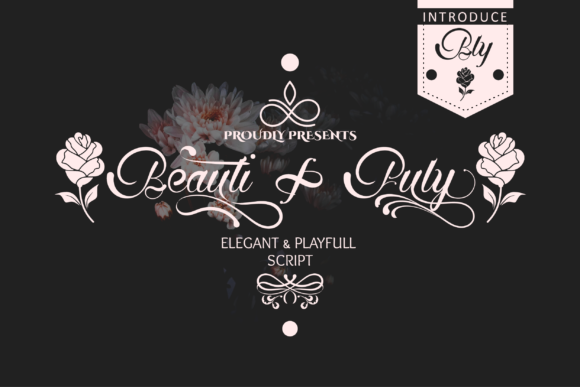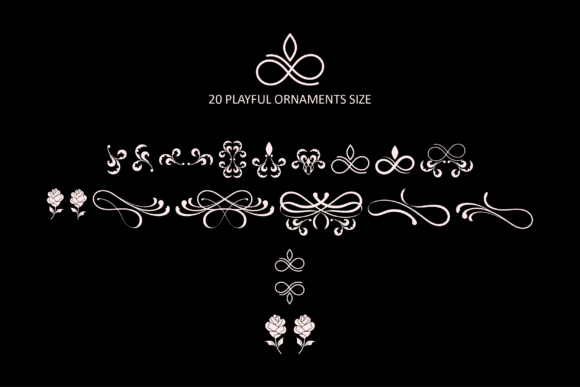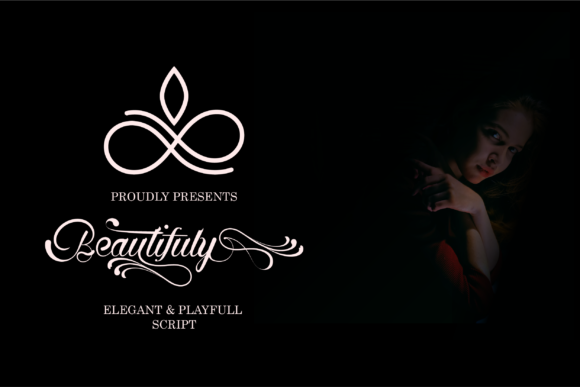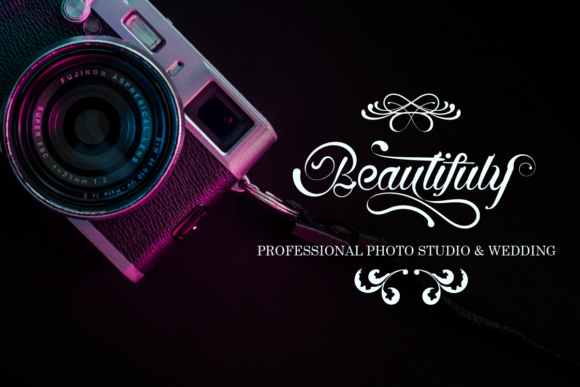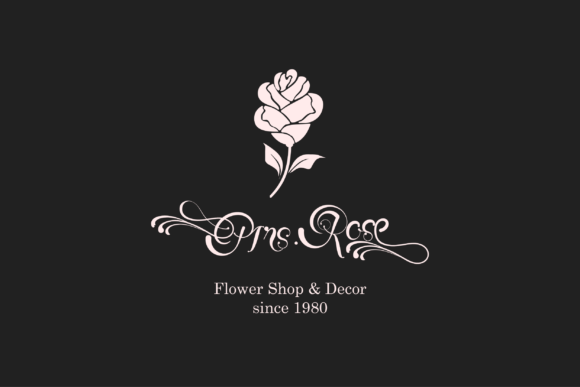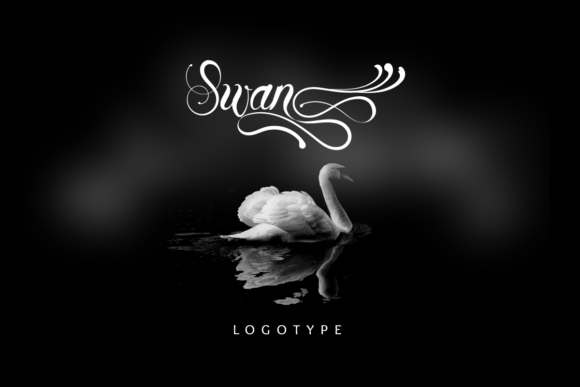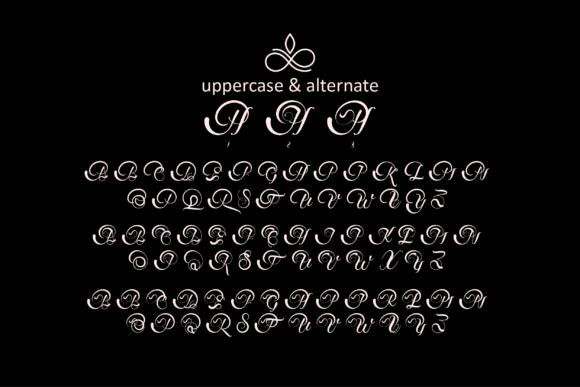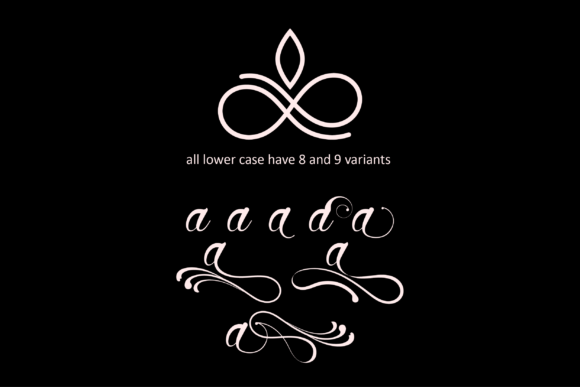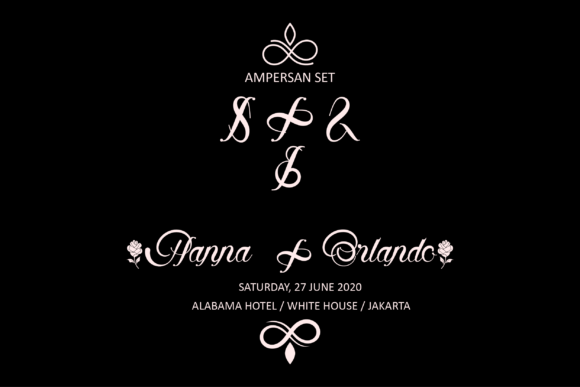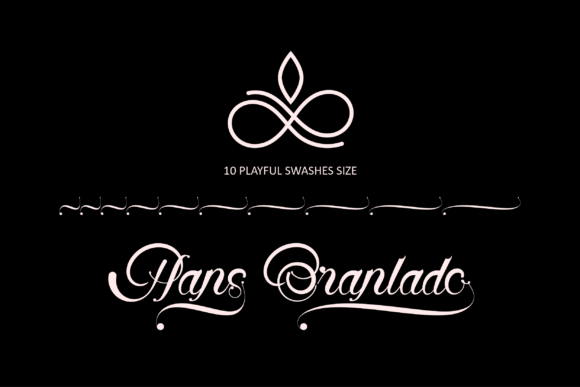
Beautifuly Font
About Beautifuly Font
Beautifuly is an amazing script font. It features gorgeous swashes and ligatures that make this script incredibly versatile. Get inspired by its authentic feel and use it to create gorgeous wedding invitations, beautiful stationary art, eye-catching social media posts, and cute greeting cards.